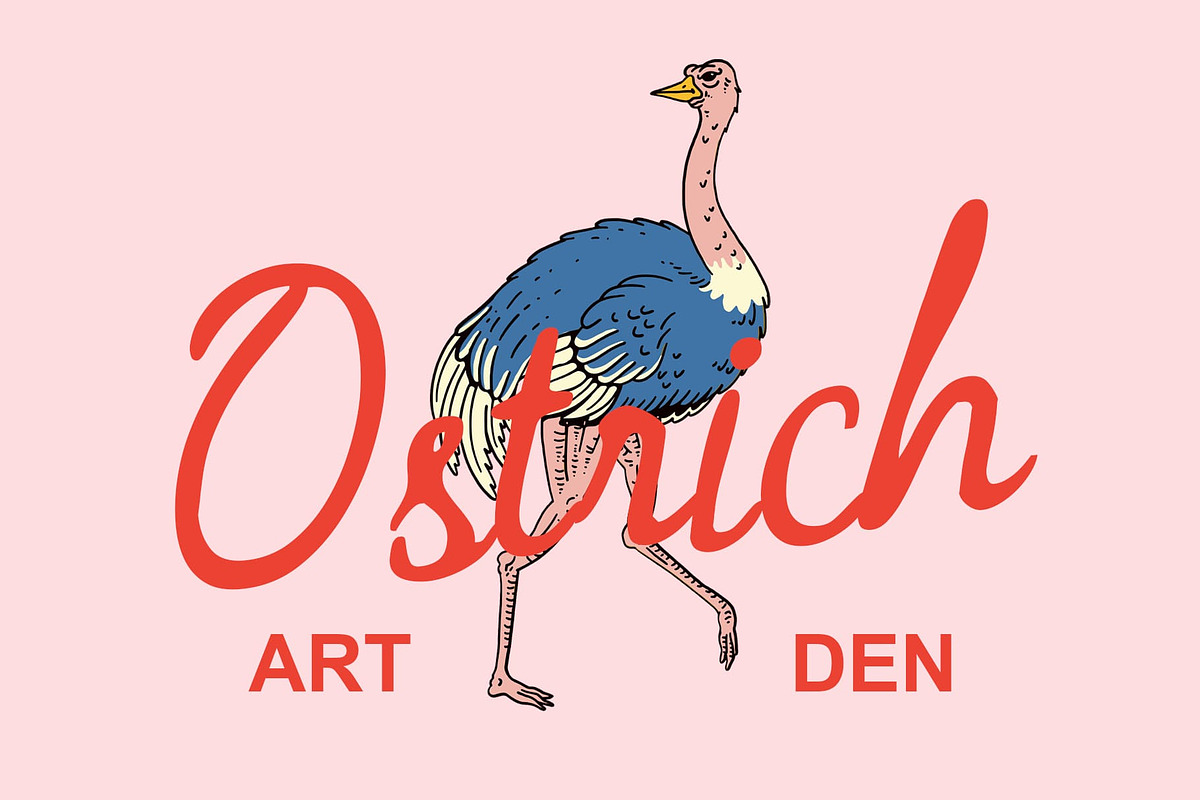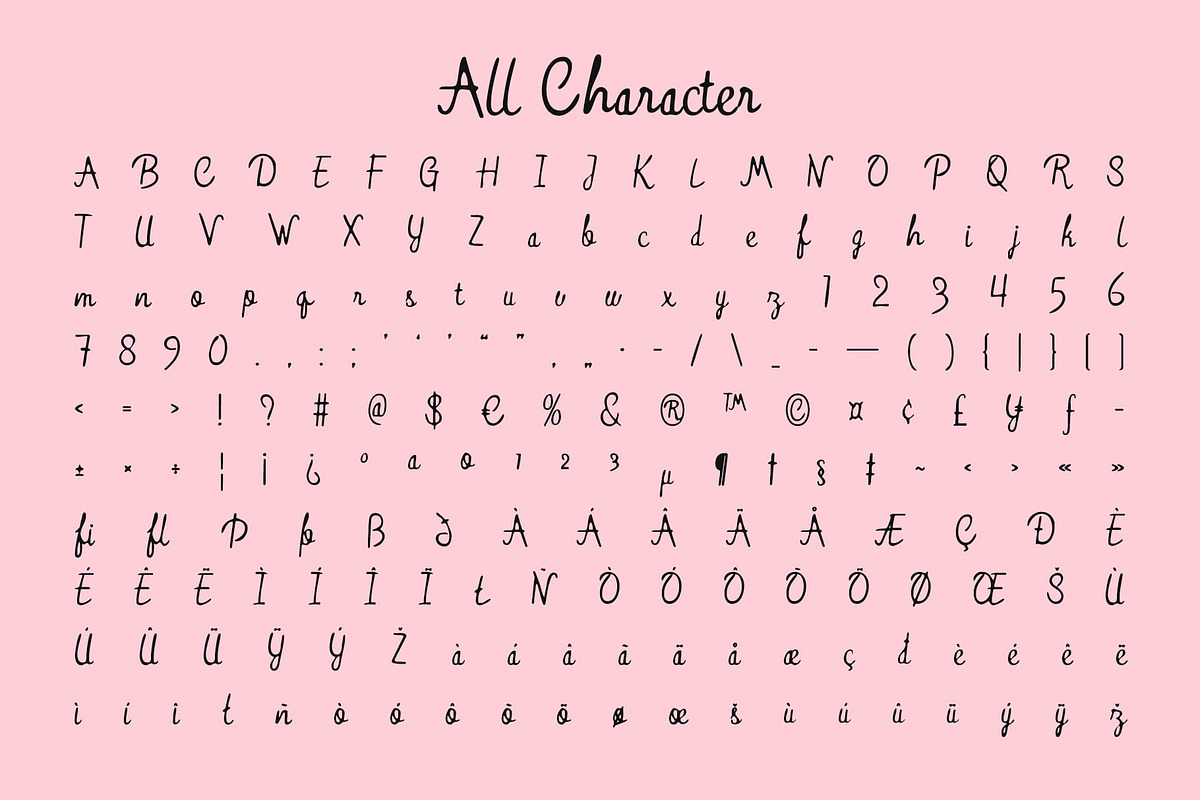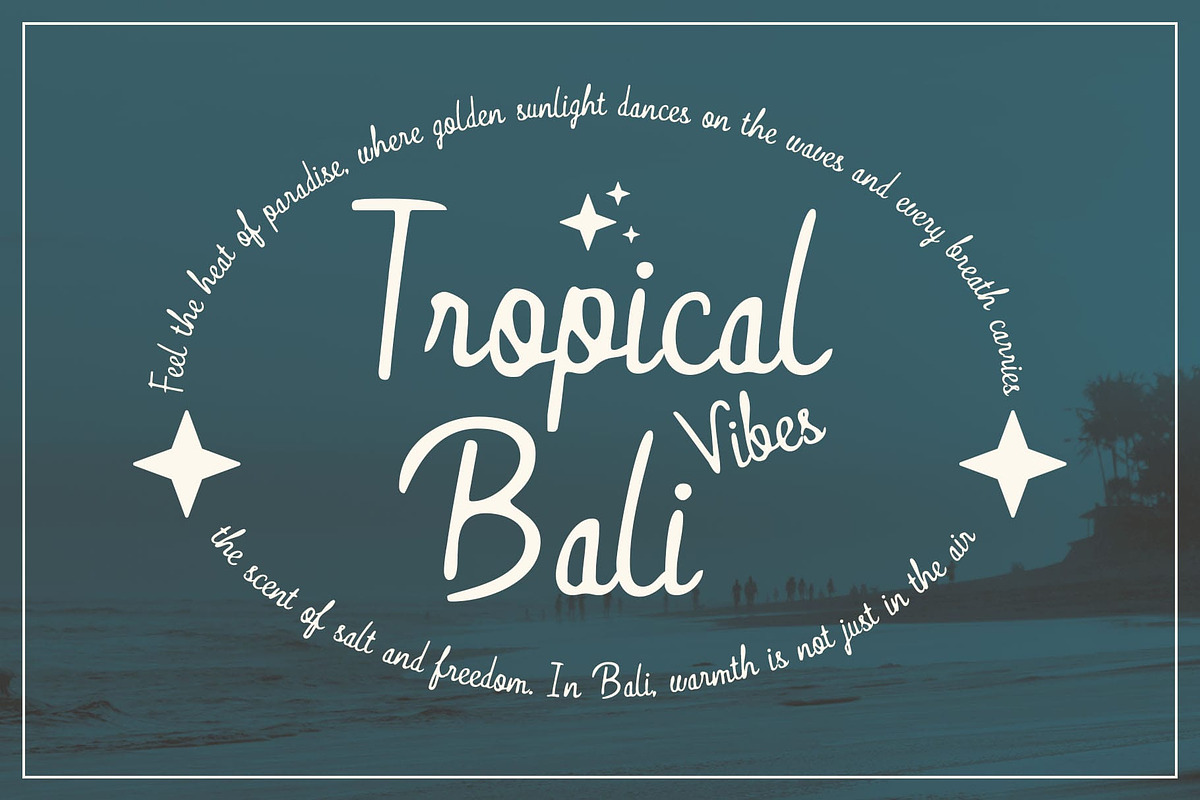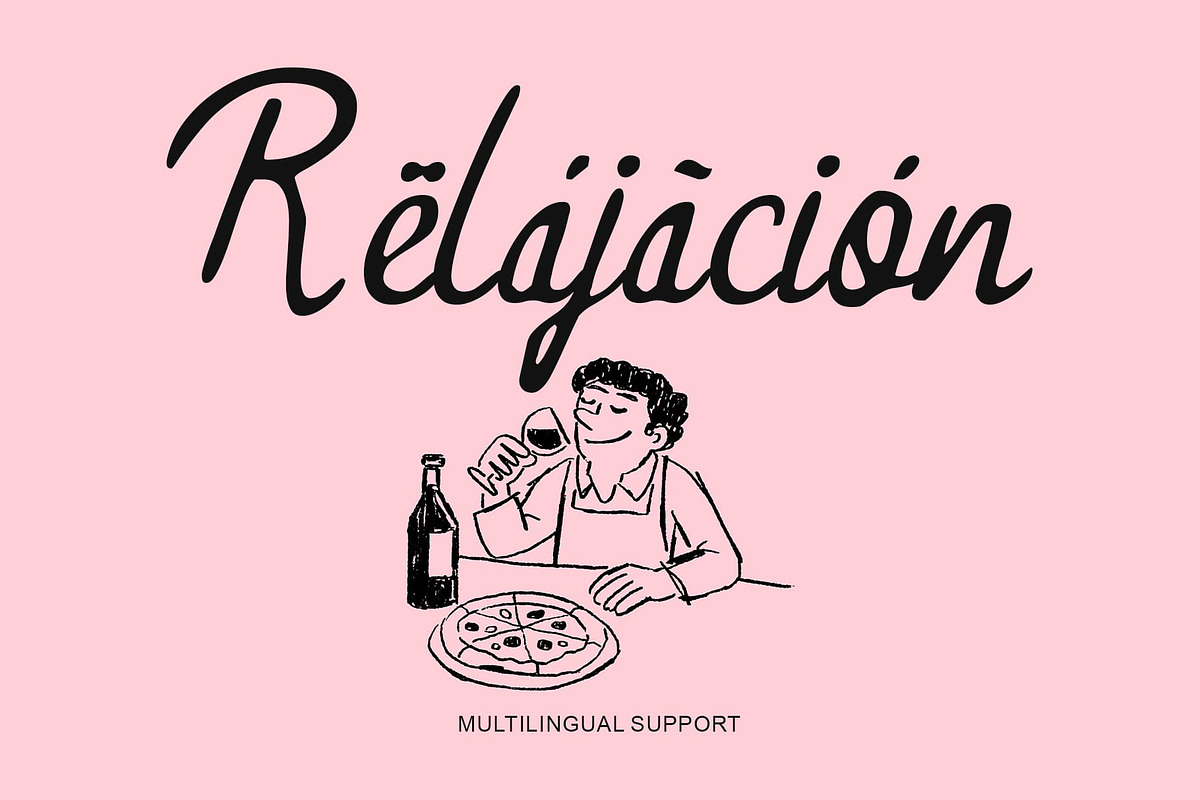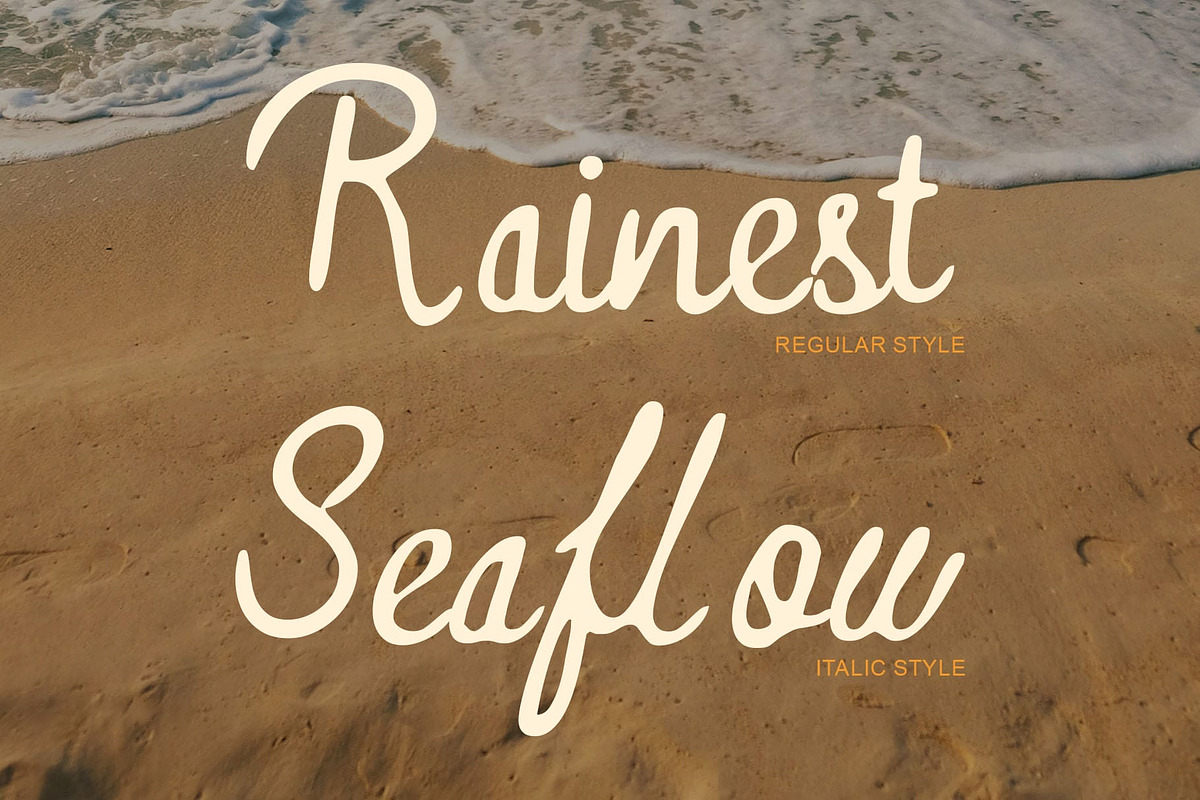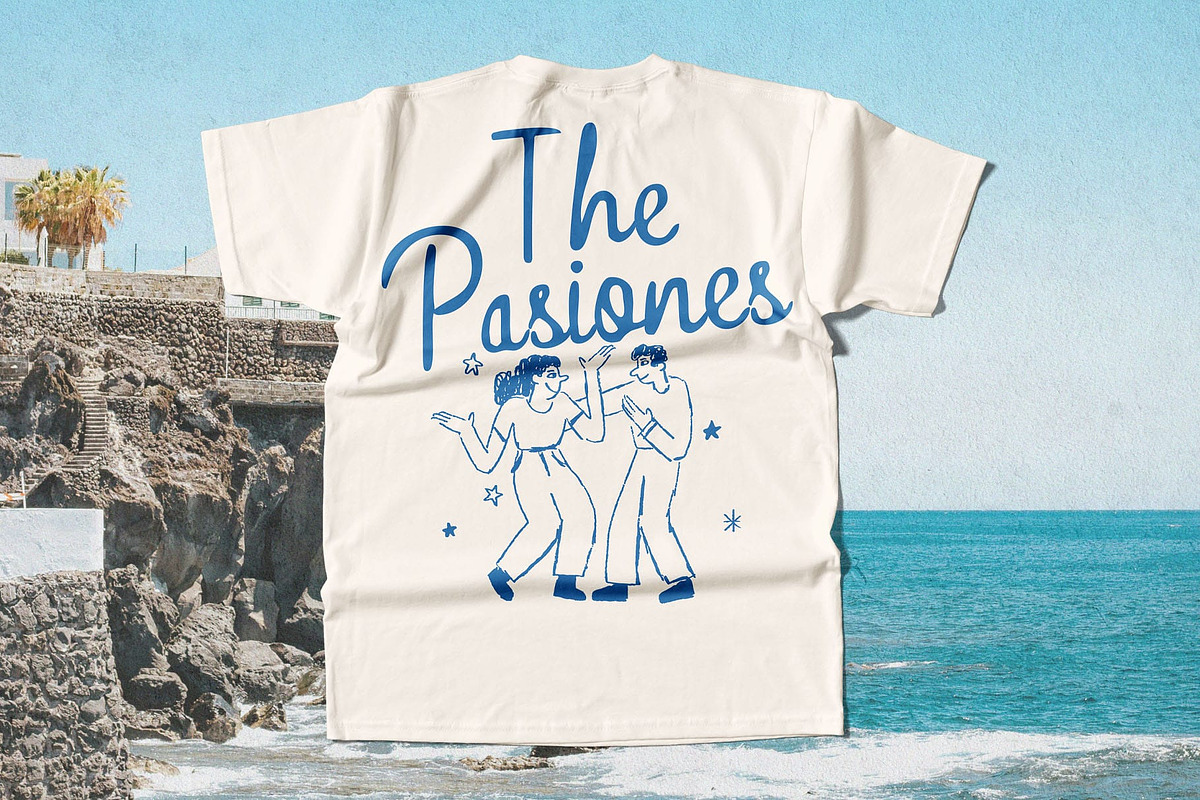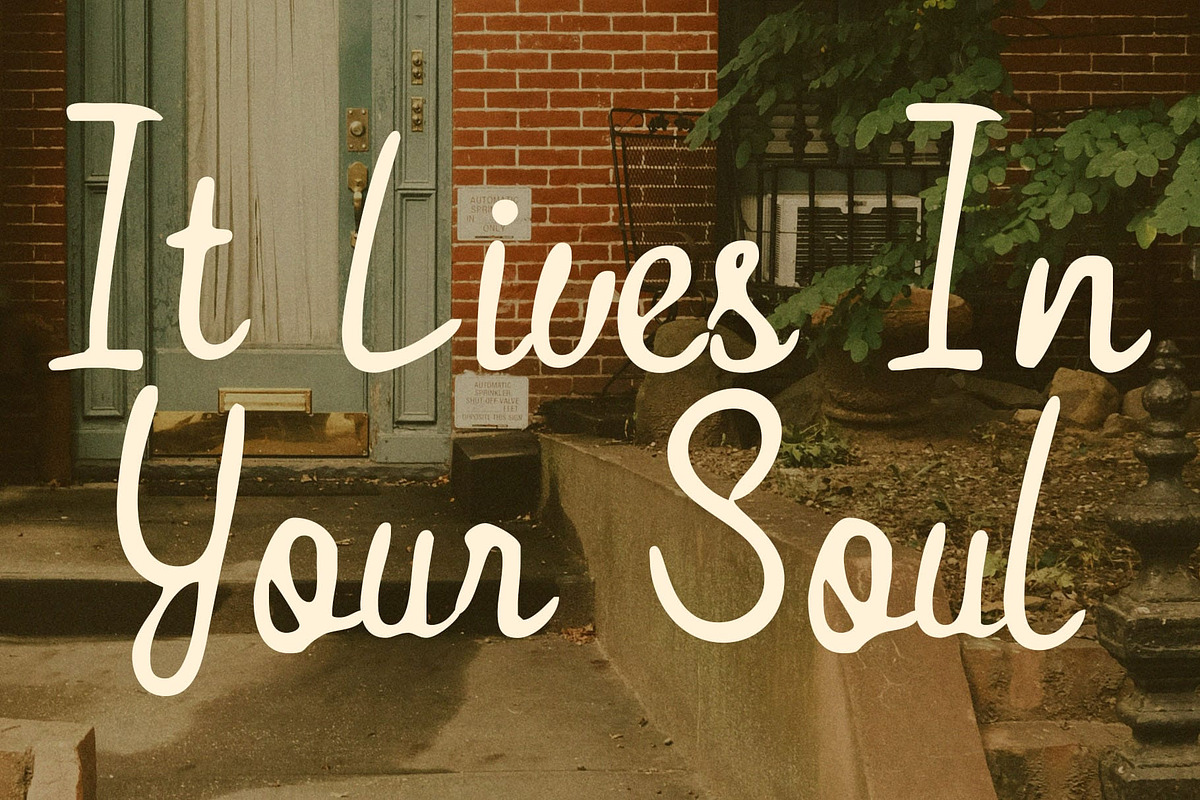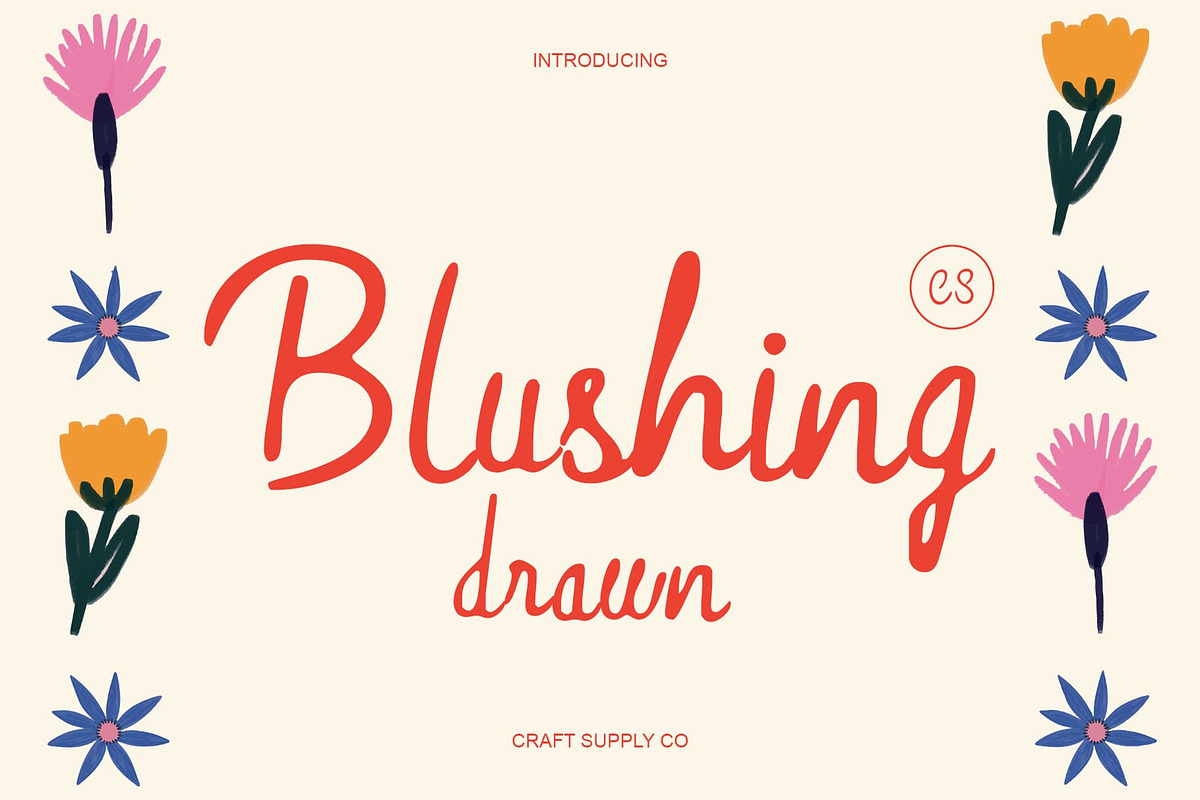
CS Blushing Drawn
CS Blushing Drawn – Sweet Script Handcrafted Touch
Script Font with Artistic Flow This is an artistic and graceful script font that flows with effortless charm. Its elegant swashes and stylish flourishes give every word a romantic, expressive feel perfect for designs that want to convey beauty, emotion, and creativity. The gentle curves and smooth rhythm make it ideal for adding a personal, sophisticated touch to any visual composition.
Drawn Texture for Natural Warmth Enhanced with a hand-drawn texture, this font captures the authentic look of real handwriting. This subtle texture adds depth and warmth, making the font feel genuine and organic. Each stroke feels crafted by hand, bringing a natural softness that complements its elegant script form.
Stylish Details for Timeless Appeal The balanced letterforms and decorative accents of this font make it both refined and approachable. It’s a font that bridges classic beauty with artistic freedom, ensuring that every design feels both timeless and full of life.
Perfect for Elegant and Personal Designs Ideal for branding, invitations, wedding materials, and special event posters, this font adds a touch of romance and artistry to every project. Whether you’re creating a luxurious logo or a heartfelt message, this font delivers the perfect blend of sweetness, sophistication, and handcrafted charm.